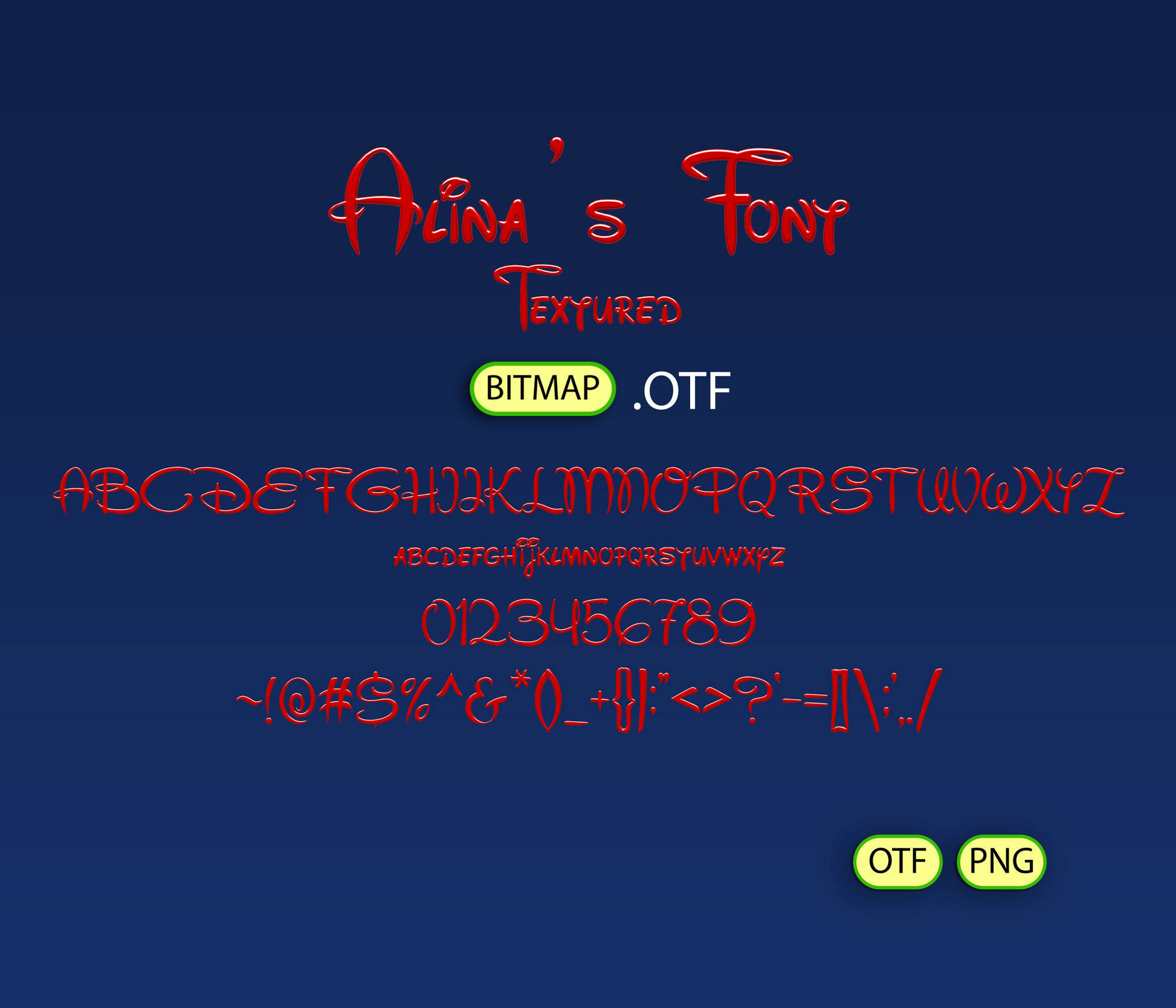
Enchanted Animation Font Textured
Step into the whimsical world of animated dreams with our Enchanted Animation font, capturing the essence of beloved cartoons and magical storytelling. Perfect for fairy-tale fans, party planners, event organizers, and designers, this font brings the spellbinding, joyful spirit of classic animation to your projects. Create magical materials, merchandise, or digital content with the heartwarming charm of storybook magic.
Our Enchanted Animation font features sweeping, magical lines and storybook characters reflecting the world of animated wonder. Ideal for:
1. Event Promotions: Create magical invites, posters, and banners for storybook parties, fantasy gatherings, and themed celebrations that capture the spirit of animated dreams
2. Merchandise Design: Perfect for t-shirts, posters, and accessories that showcase the enchanting world of cartoon magic
3. Digital Media: Enhance websites, blogs, and social media with spellbinding headers and graphics that express the joy of animated wonder
4. Animation Content: Add authentic flair to fan art, storybook designs, and creative projects inspired by classic cartoons
5. Personal Projects: Bring magical delight to scrapbooking, DIY crafts, and home decor inspired by the world of animated tales
Our font pays tribute to the beloved world of animated storytelling, empowering your designs with its magical and whimsical spirit. Whether crafting promotional materials, designing merchandise, or adding an enchanted touch to personal projects, this font communicates the timeless essence of cartoon wonder. Ready to inject storybook magic into your creations? This font is your key to exciting, impactful design.